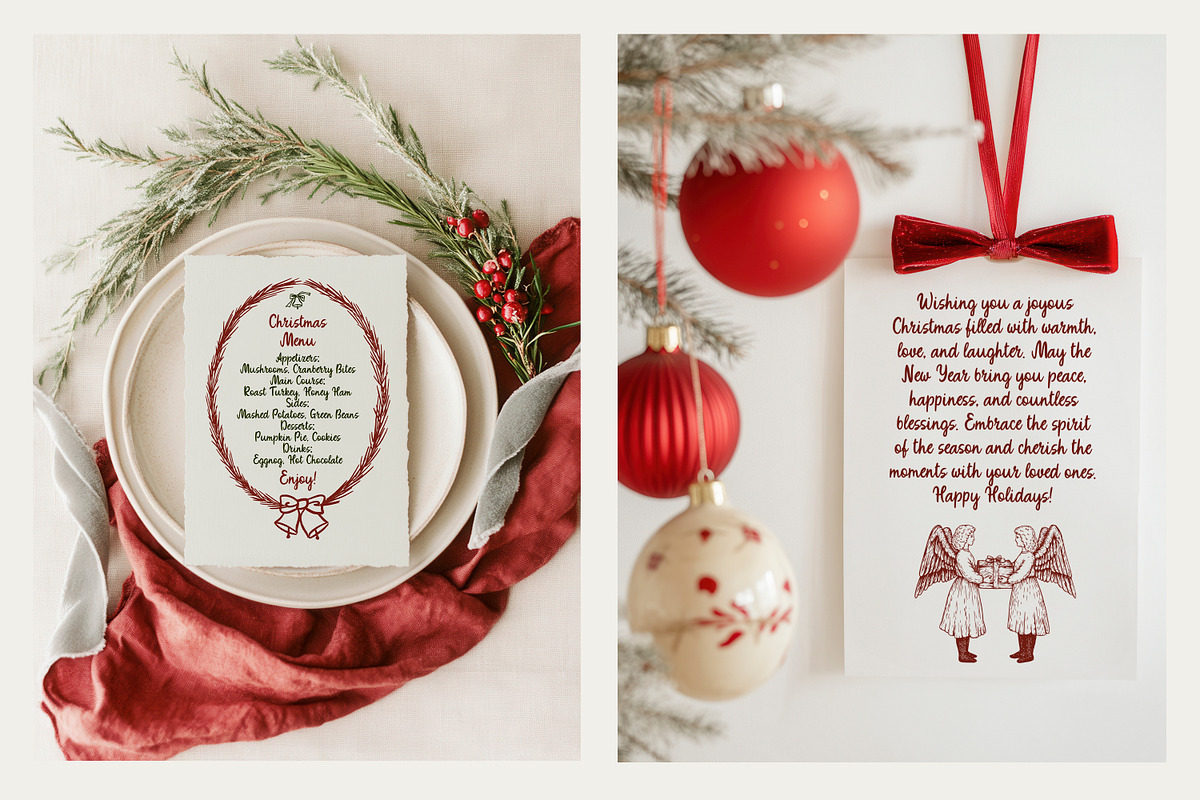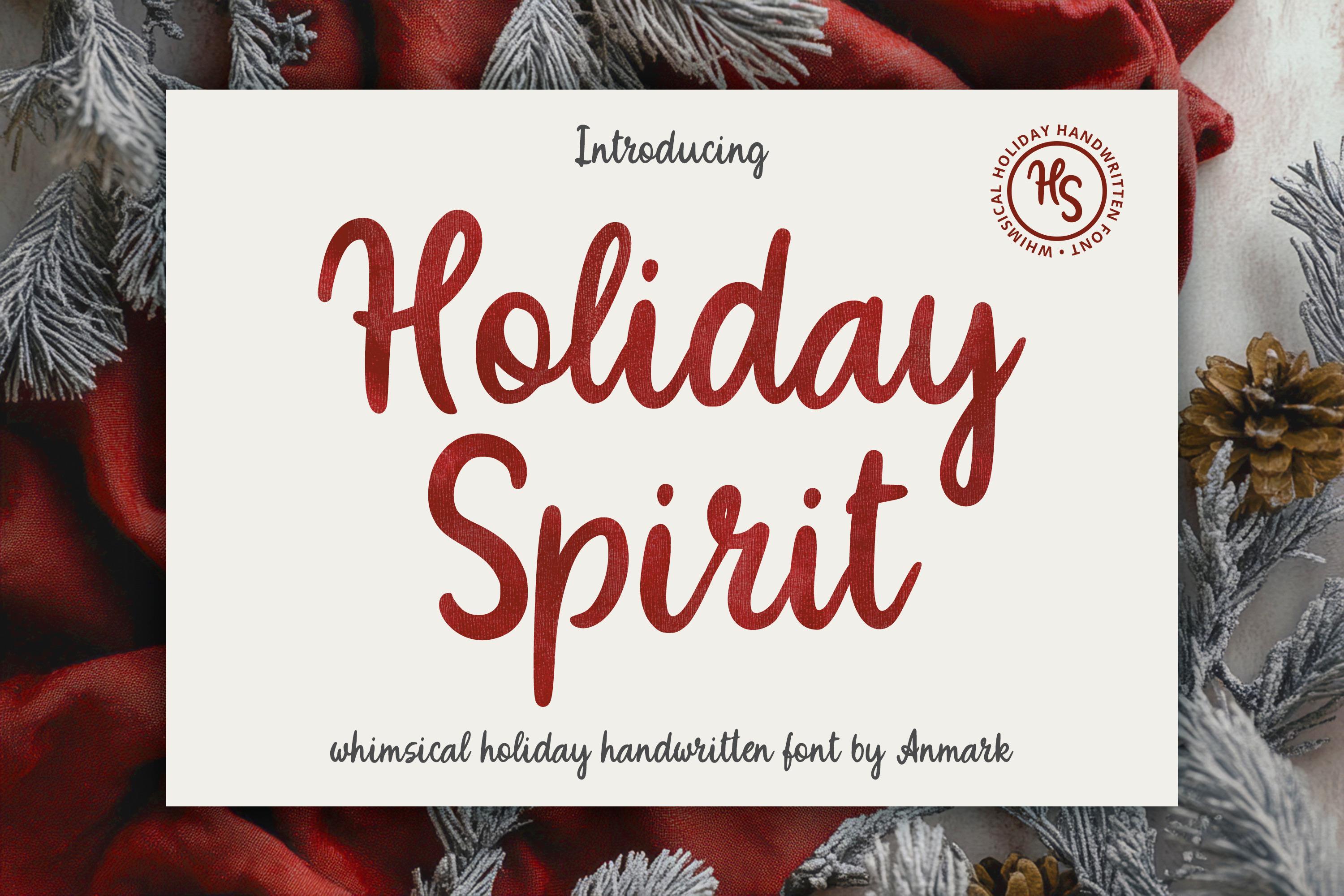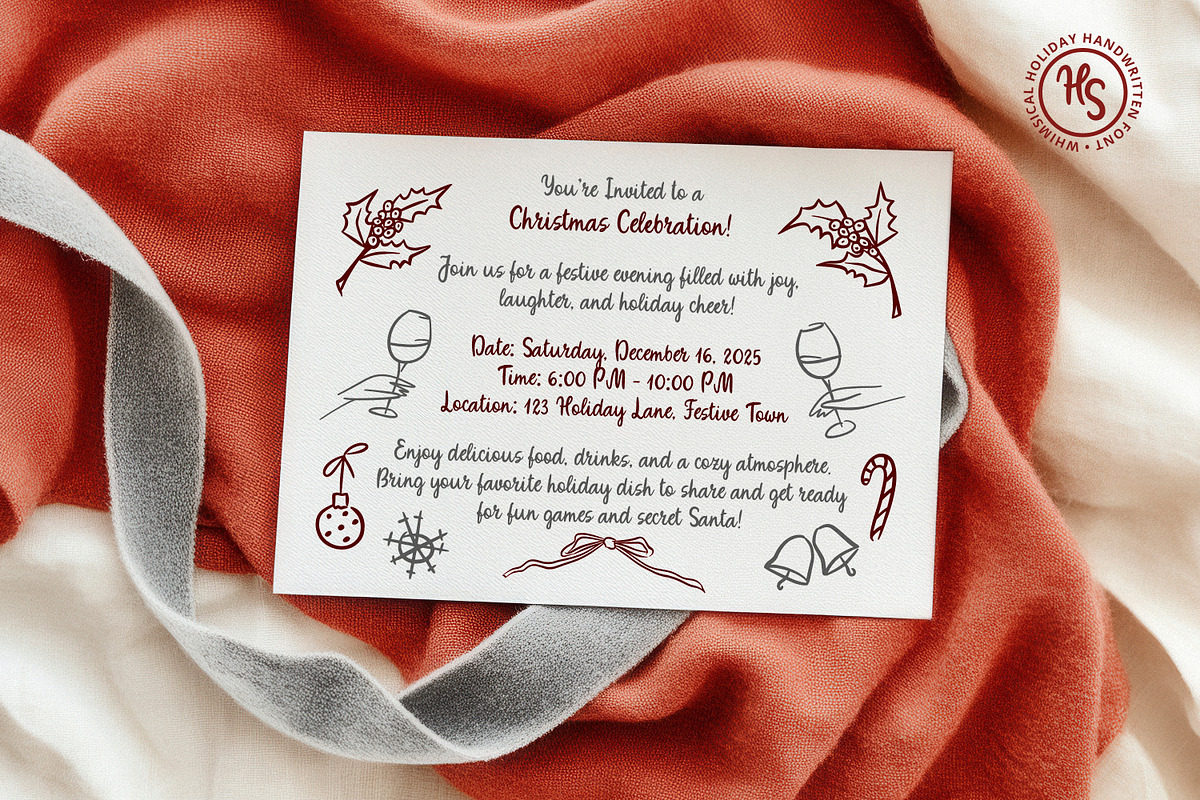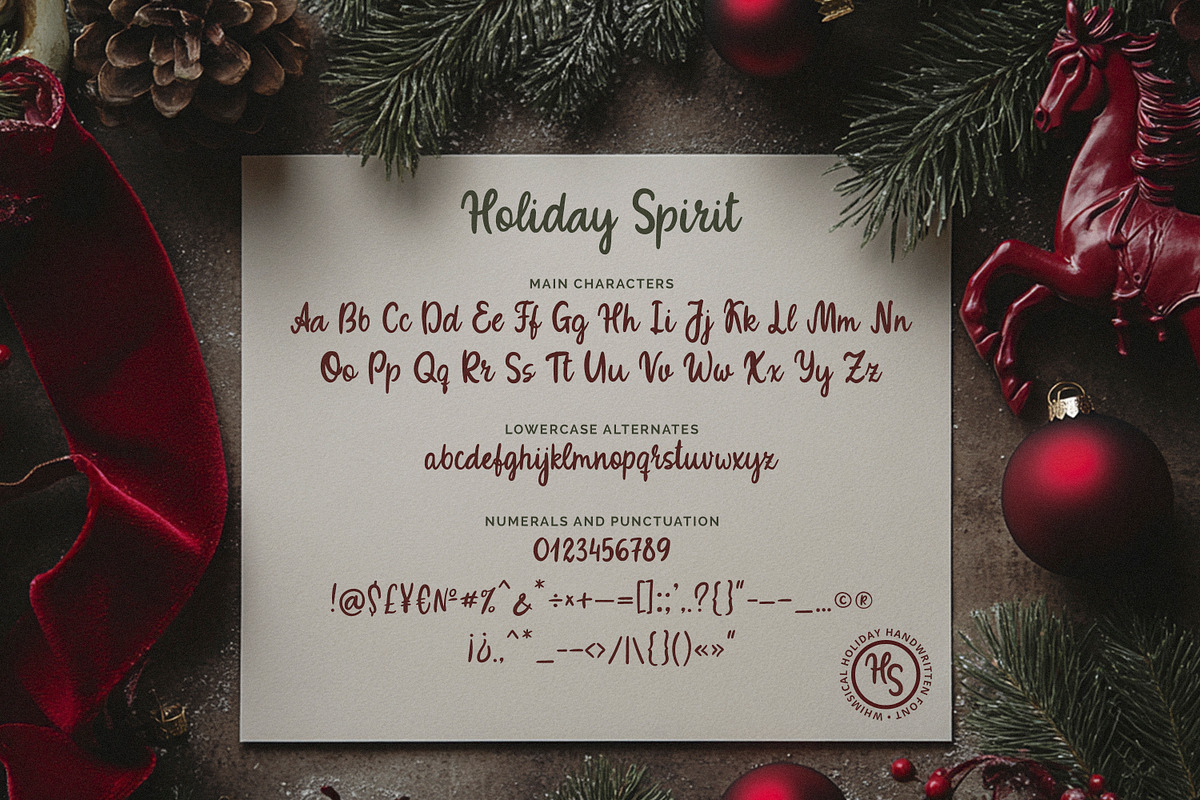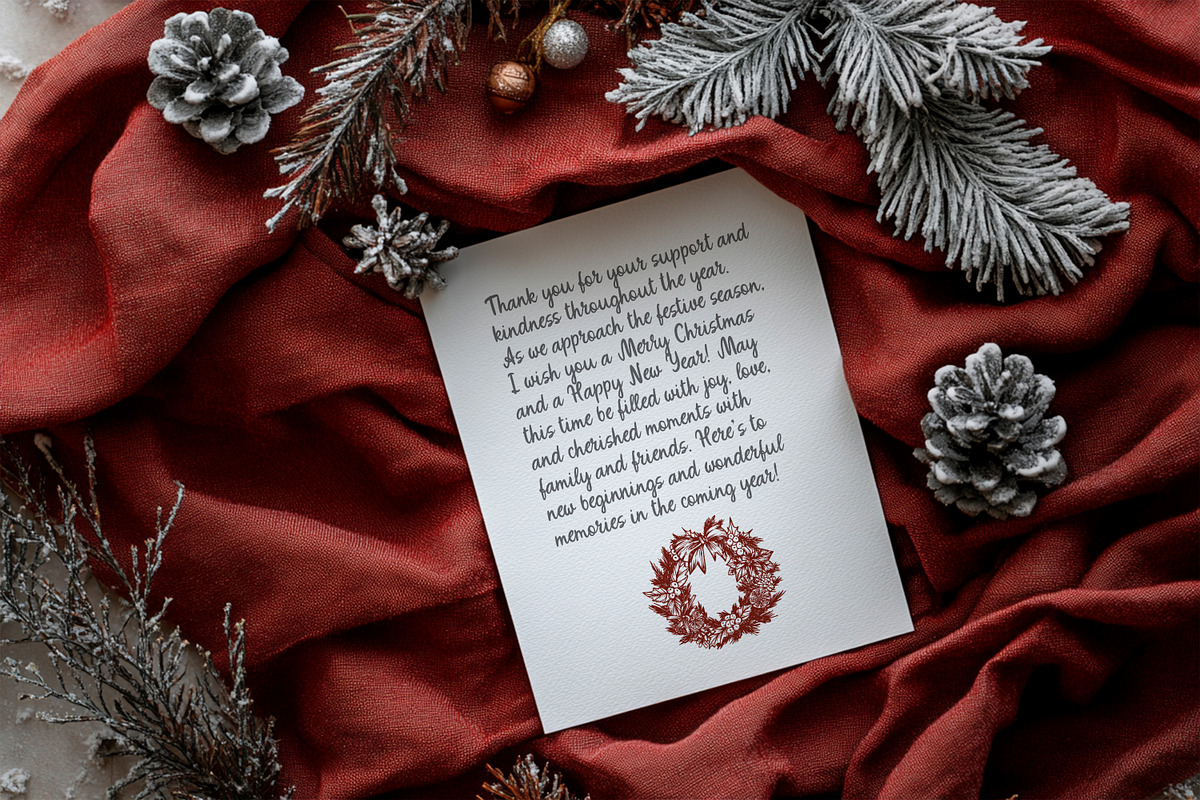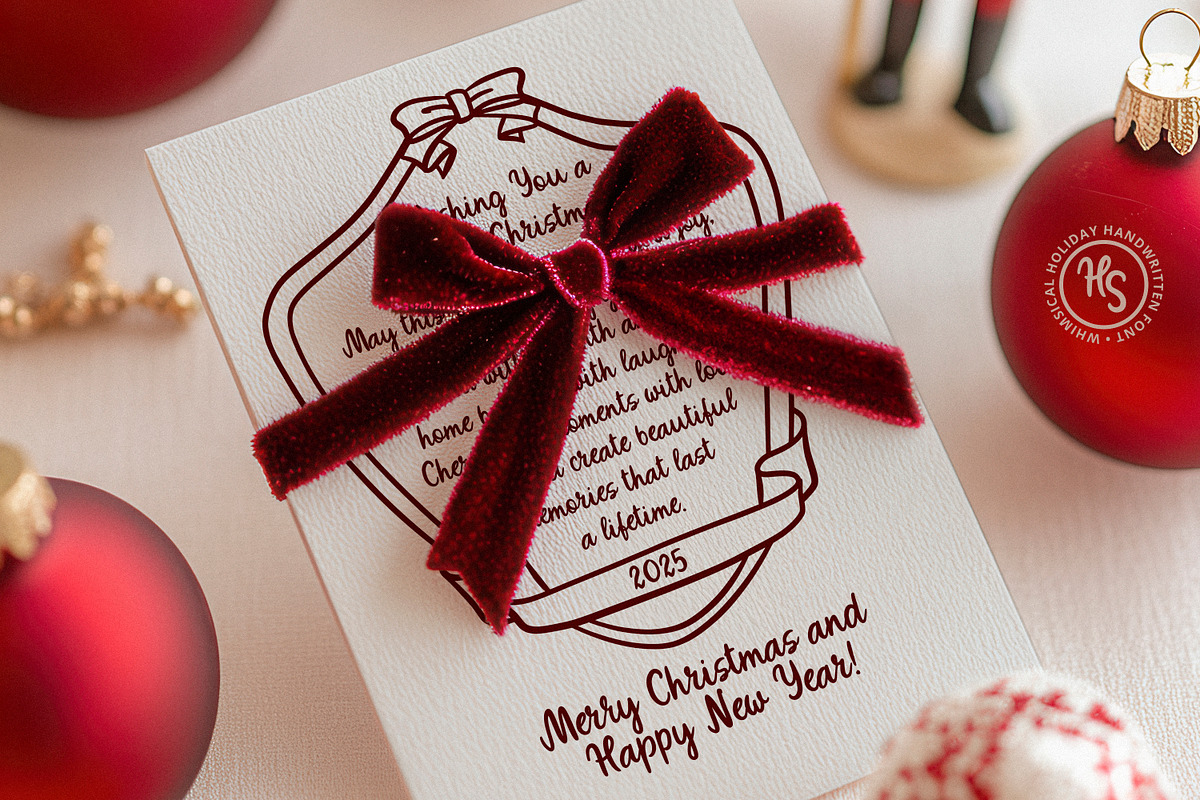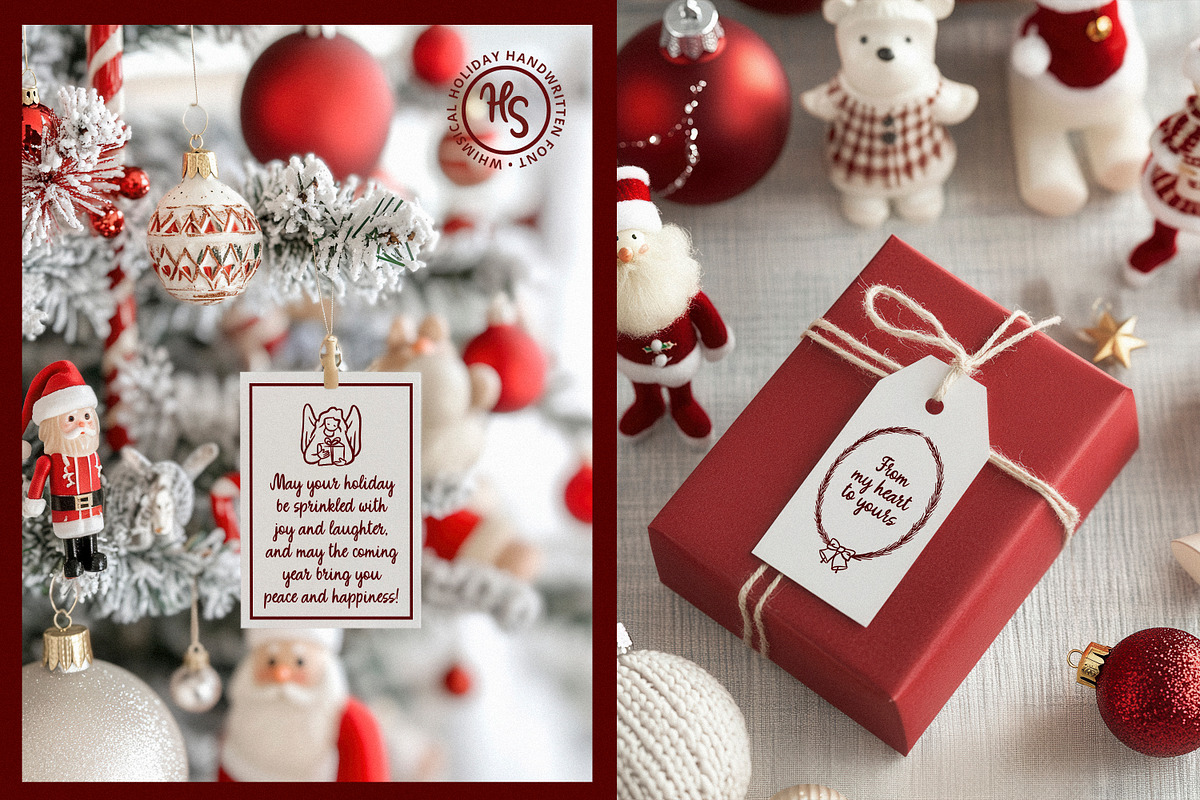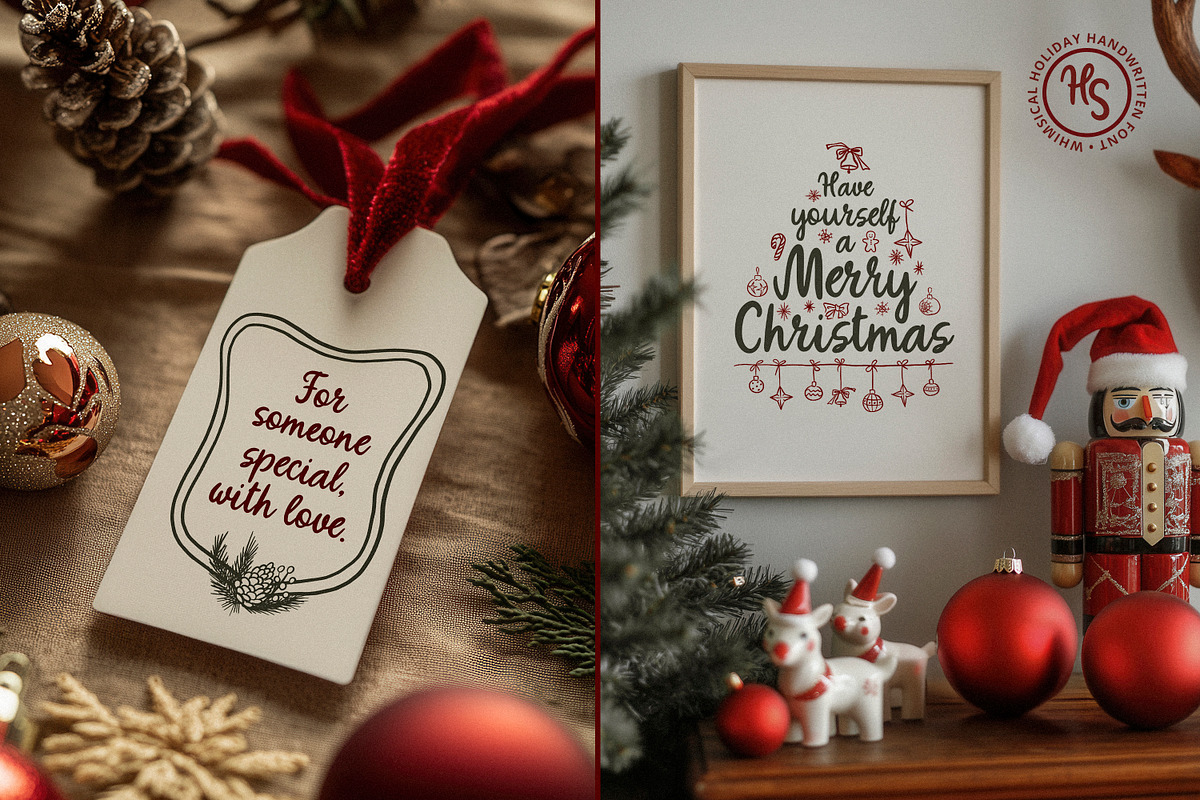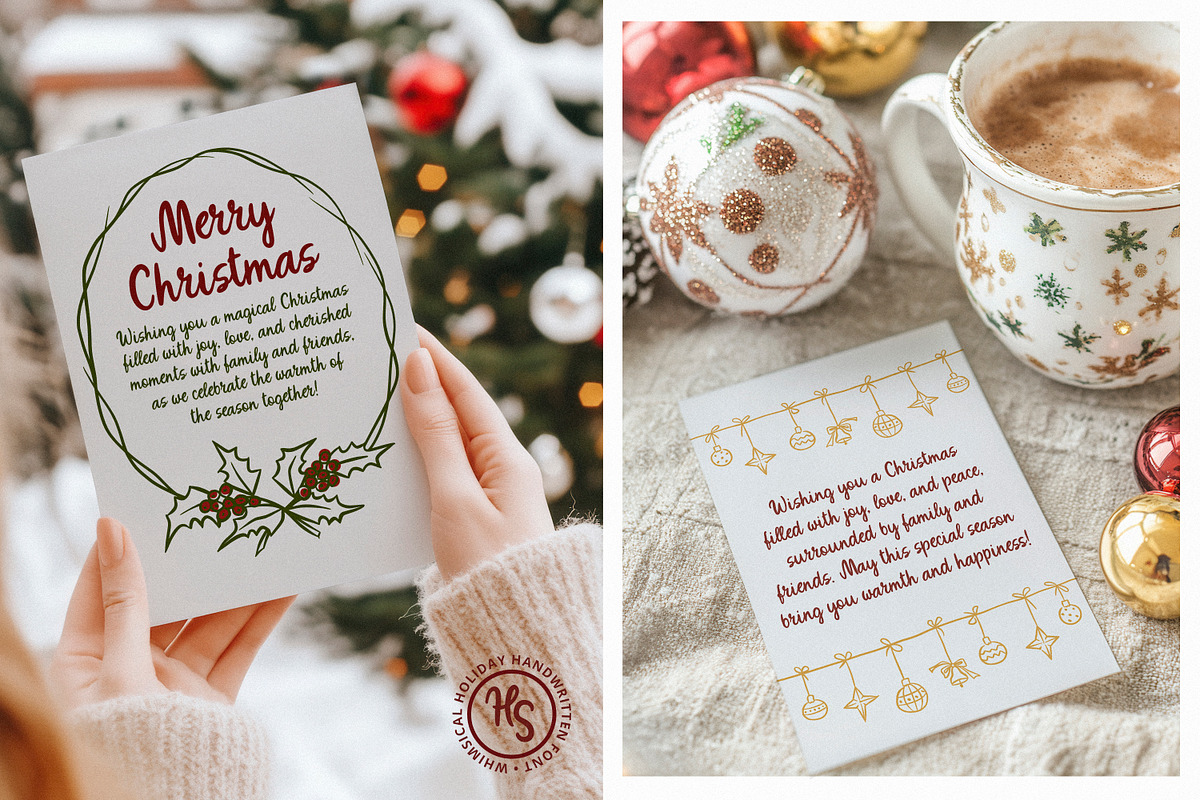
Holiday Spirit Festive Charming Font
Introducing my new handwritten, Christmas whimsical font - Holiday Spirit. This romantic, festive, flowing font has a smooth, organic quality that will add an elegant, personal touch to any design.
Holiday Spirit would be perfect for menus, handwritten wedding and Christmas invitations, greeting cards, modern wall art, Instagram posts, quotes, branding, and more.
The font includes a full set of uppercase and lowercase basic characters, numbers, punctuation, and a complete set of lowercase alternate glyphs to add variety and character to your text.